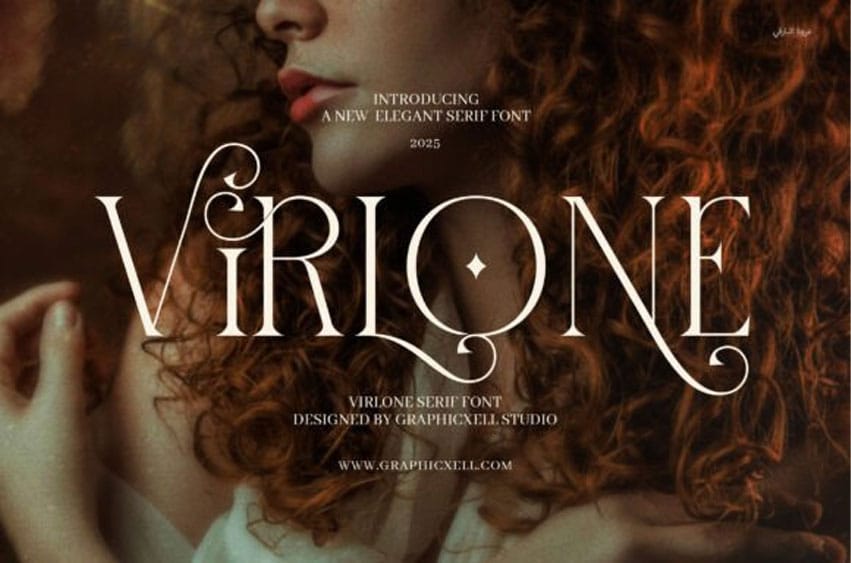
Virlone Font is a stunning and versatile typeface that embodies sophistication and modernity. Crafted with attention to detail, this serif font stands out with its unique ligatures and alternate forms, making it perfect for creating high-end, stylish designs. Whether you are working on logos, branding materials, websites, product packaging, magazines, or advertisements, Virlone Elegant Serif offers a refined touch that elevates any project. At its core, Virlone combines classic serif elements with contemporary elegance.
The font’s clean lines, smooth curves, and balanced proportions ensure readability, while its distinctive ligatures and alternates inject character and charm. This harmonious blend of tradition and modern design makes it an ideal choice for luxury brands, boutique stores, and sophisticated publications. Its versatility also shines through in various applications, from high-end product labels to eye-catching website headlines. With a strong emphasis on beauty and functionality, Virlone Elegant Serif is not just a font—it’s a tool for storytelling.
The graceful curves and striking serifs lend a sense of timelessness, while the unique ligatures add a creative, almost artistic flair. It is perfect for any project that requires a balance of professionalism and personal touch. Whether you’re designing a chic restaurant menu, a fashionable magazine layout, or an elegant logo, this font will seamlessly bring your vision to life.
What truly sets Virlone apart is its flexibility. The alternate letterforms allow designers to create custom looks for different needs, perfect for branding or creating visual contrast in your design. Its contemporary feel, coupled with its high-end appeal, makes Virlone Elegant Serif a must-have for anyone looking to bring refinement and creativity to their work. In essence, Virlone Elegant Serif is more than just a font—it’s an expression of elegance, designed to make your projects shine. Ideal for luxury branding, upscale product packaging, and sophisticated editorial designs, it’s the perfect addition to your creative toolkit.